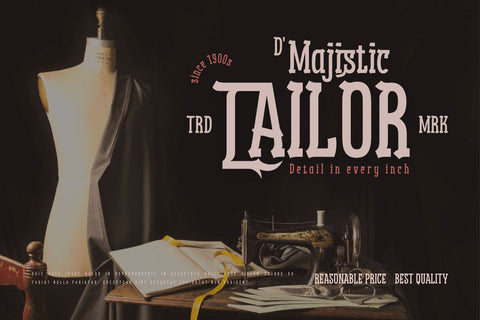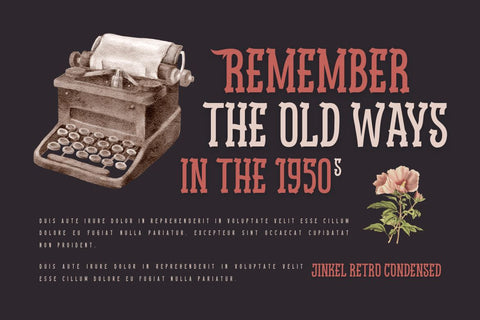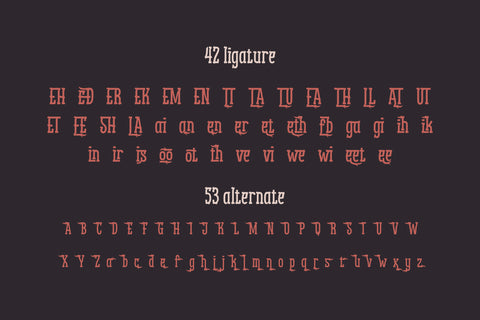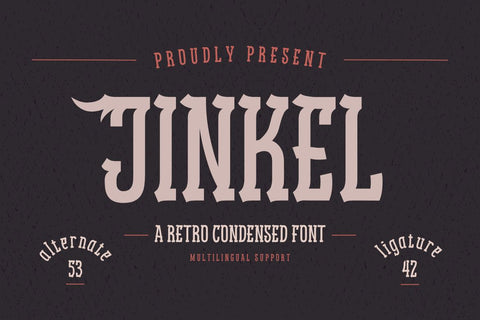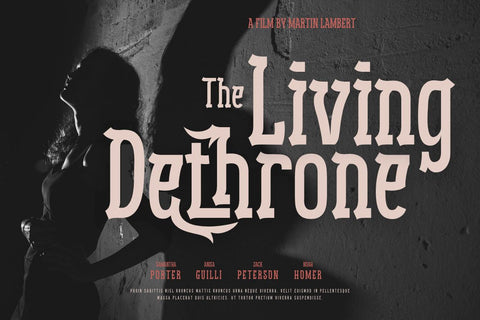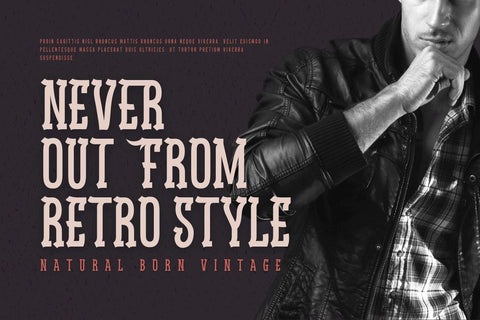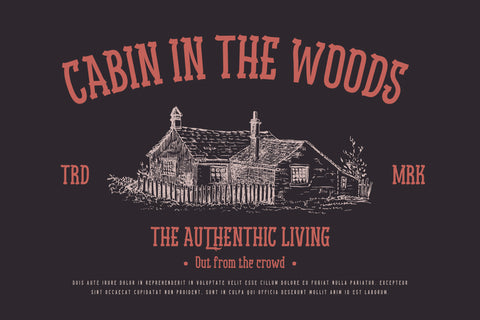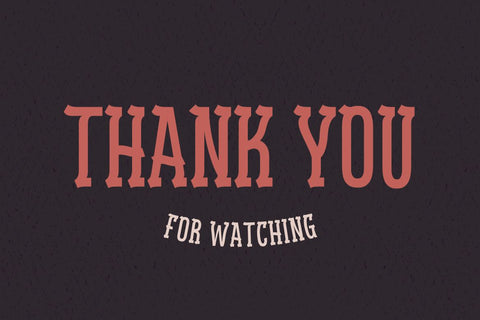
Jinkel | Retro Condensed Font
Introducing Jinkel, the perfect font for any design project requiring a retro condensed style. This font features a unique serif design on each end of the letters, providing a distinctive touch to your designs. Jinkel is perfect for titles, headers, logos, and other creative designs that require a touch of vintage inspiration. With alternate characters and ligatures included, you’ll have plenty of design options to choose from. Elevate your designs with Jinkel and give them the retro flair they deserve.